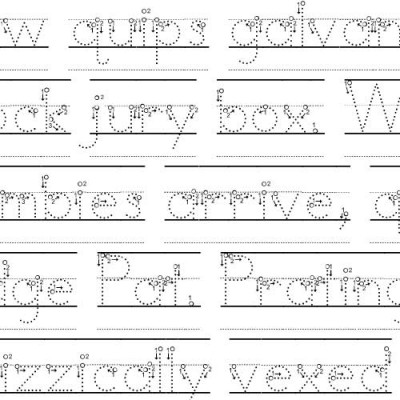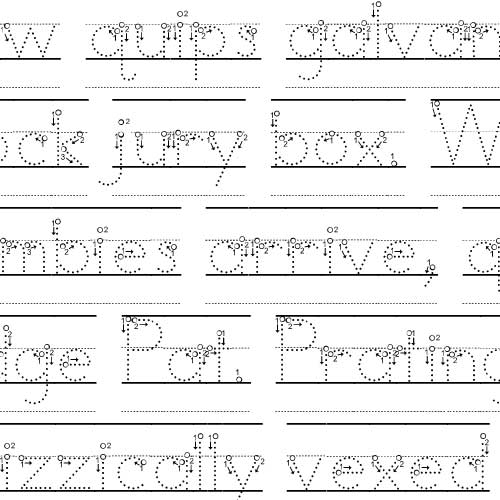
ZP Primer Print - Go Dots Numbers - FN
This traditional print font has circle/rings and numbers on each letter to show starting points of where a student places pencil then follows the path of dots to complete each letter. Includes international characters.